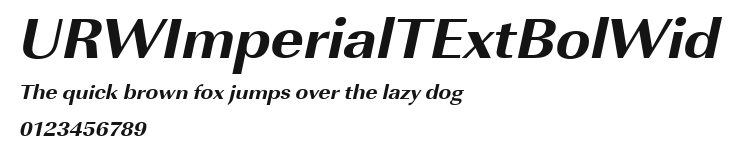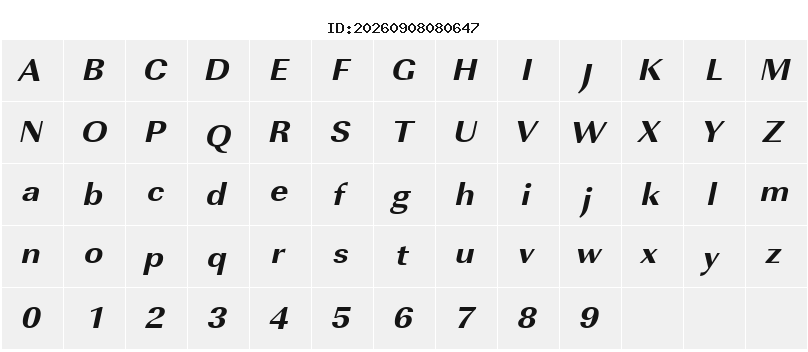
URWImperialTExtBolWid Preview
• Font Name: URWImperialTExtBolWid
• Font Style: Oblique
• Font ID: URW:URWImperialT-ExtrBoldWideObli:1994
• Full Font Name: URWImperialTExtBolWid Oblique
• PostScript Name: URWImperialT-ExtrBoldWideObli
• Character Count: 246
About URWImperialTExtBolWid.ttf
URWImperialTExtBolWid.ttf is a modern, elegant sans-serif font designed for ultimate readability and visual harmony. Perfect for branding, headlines, web design, and print materials.